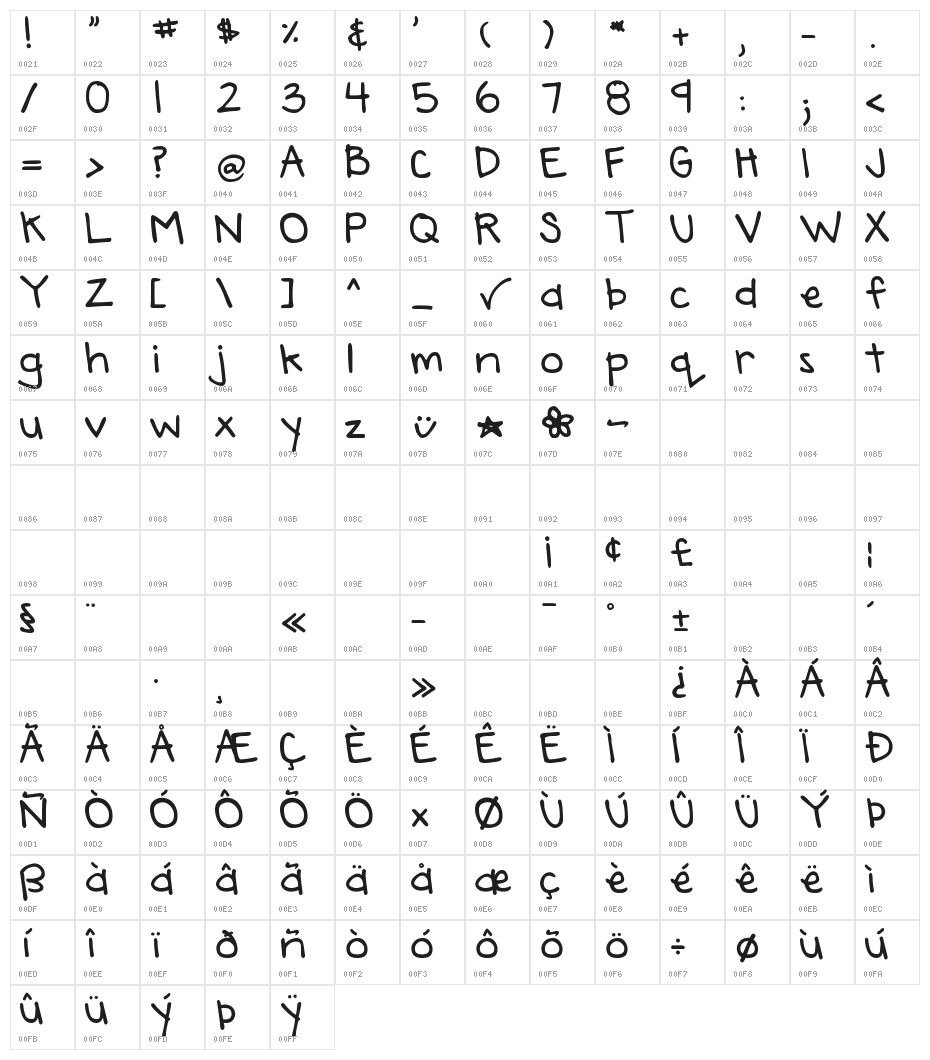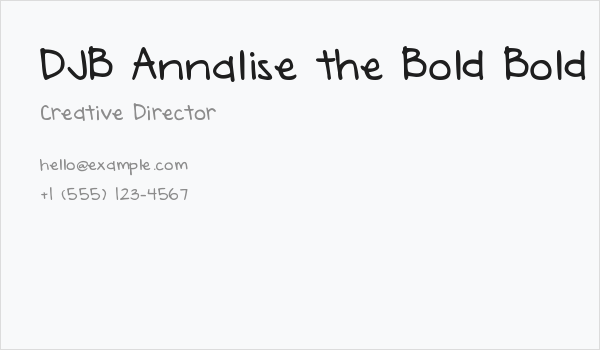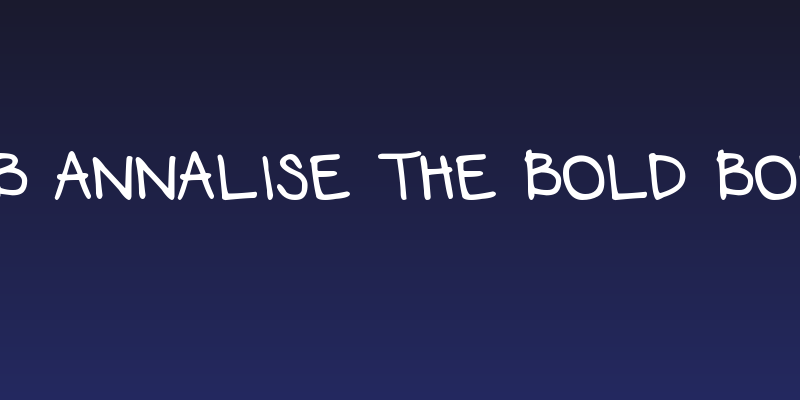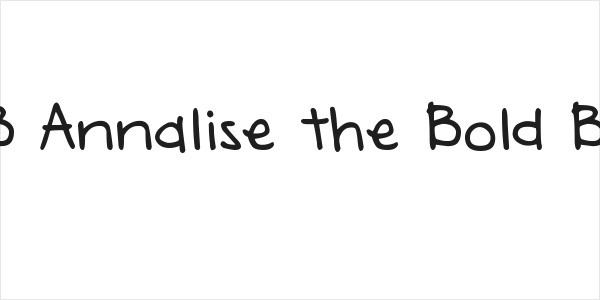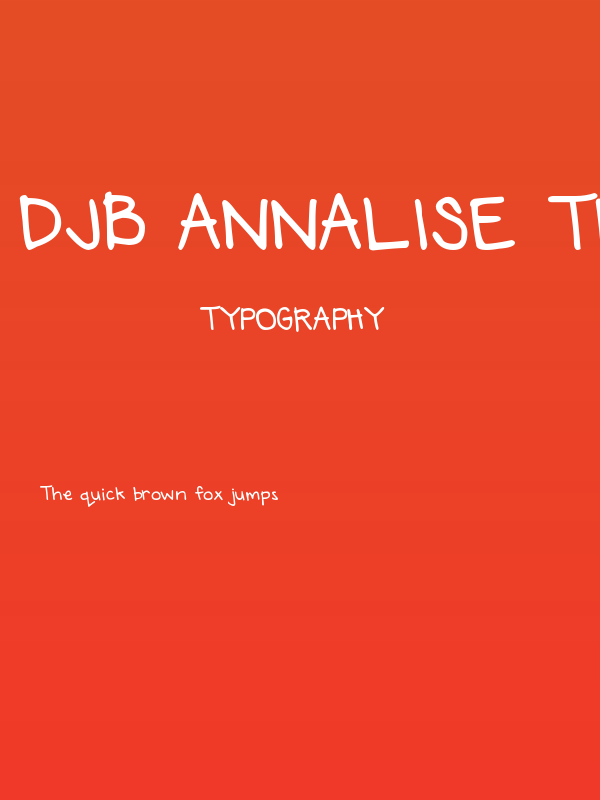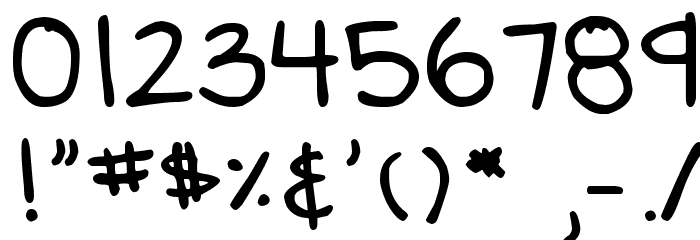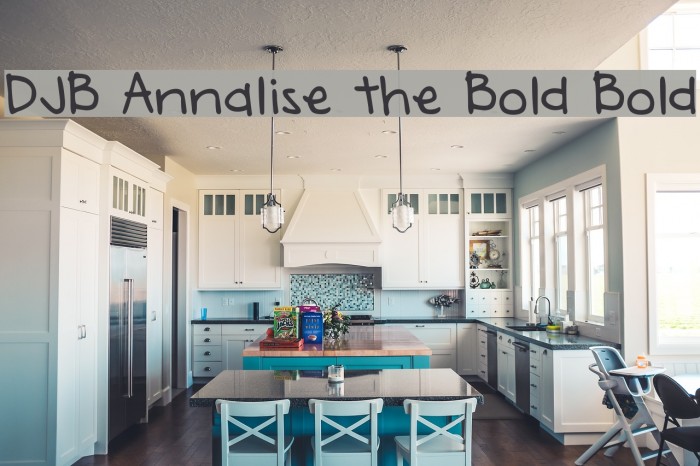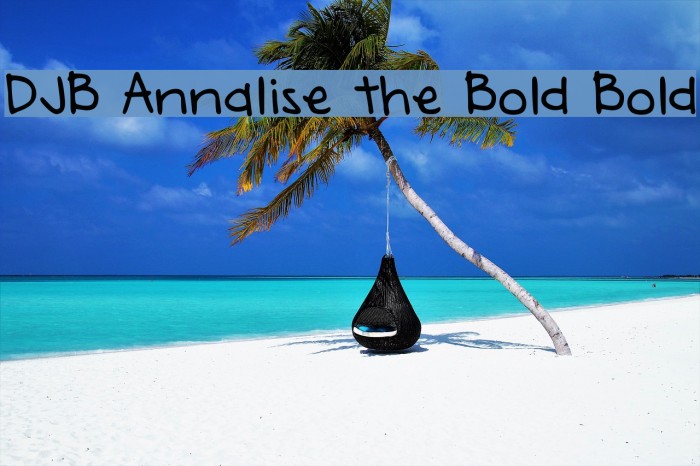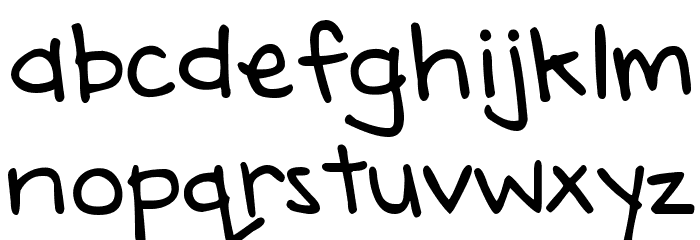
DJB Annalise the Bold Bold Font
DJB Annalise the Bold Bold Description
| Overall Style | Playful, Casual |
| Use Case | Headlines, Informal text, Creative projects |
| Proposed Projects | Ideal for children's books, greeting cards, playful branding, and informal invitations. |